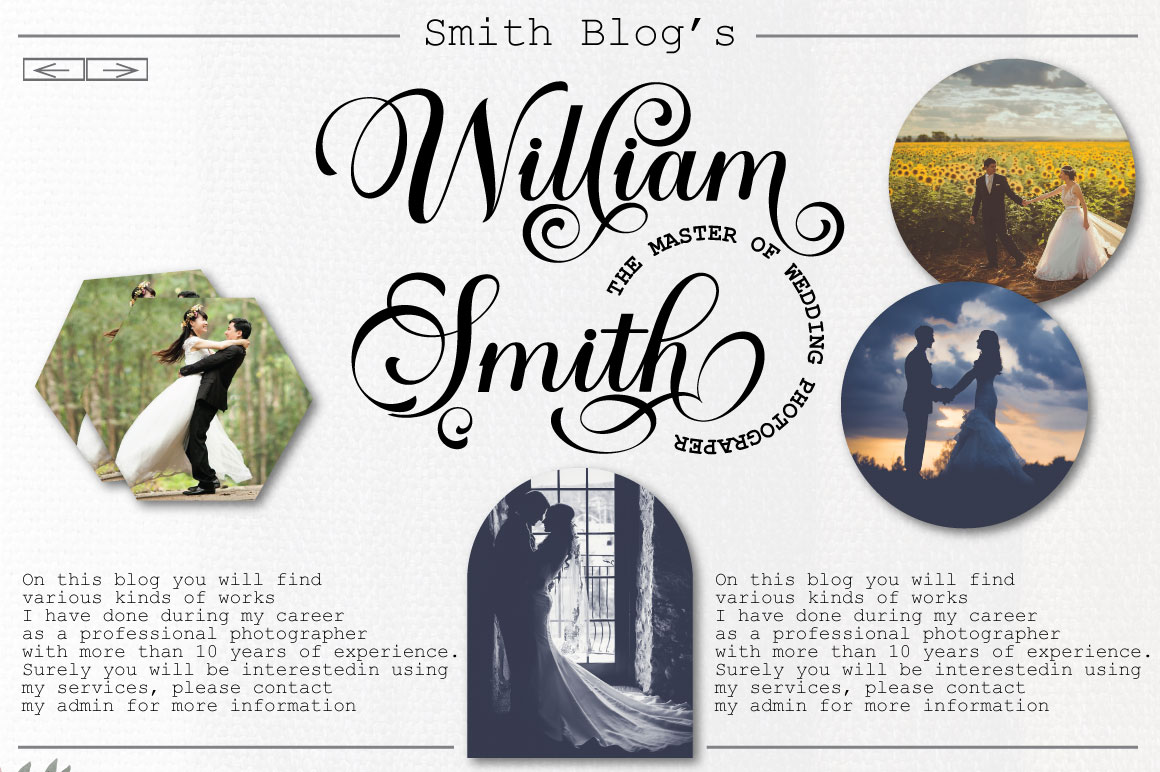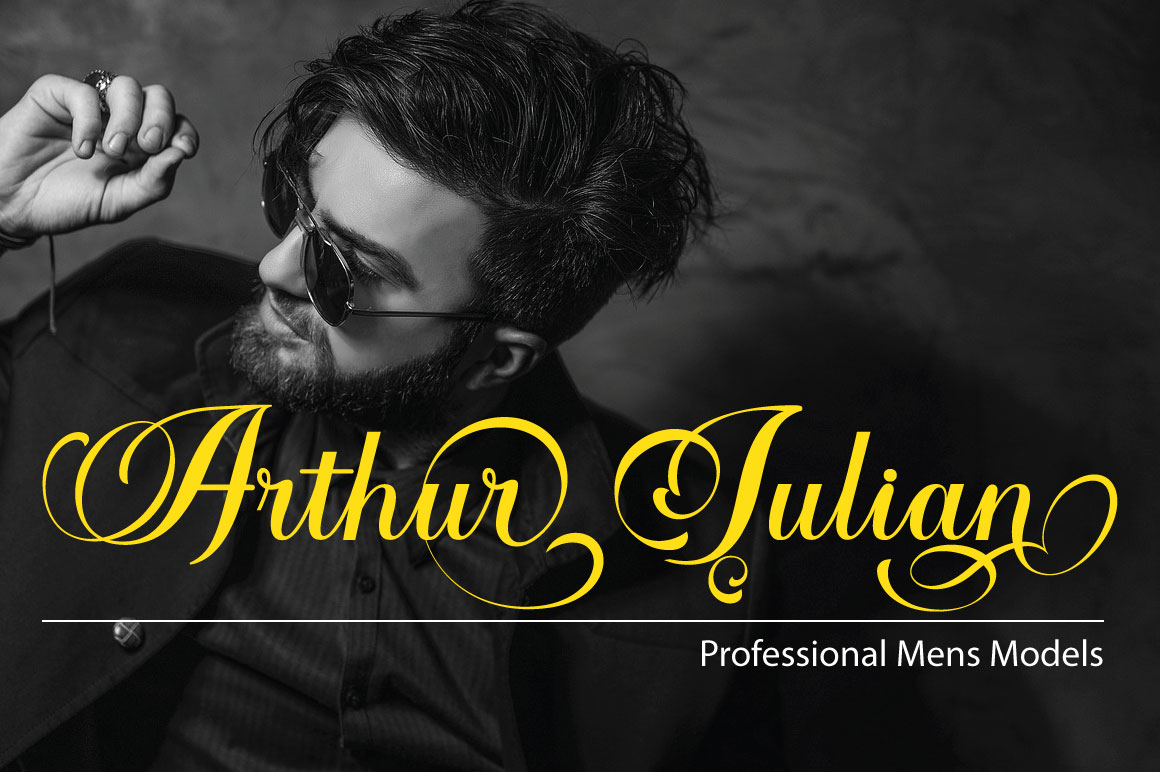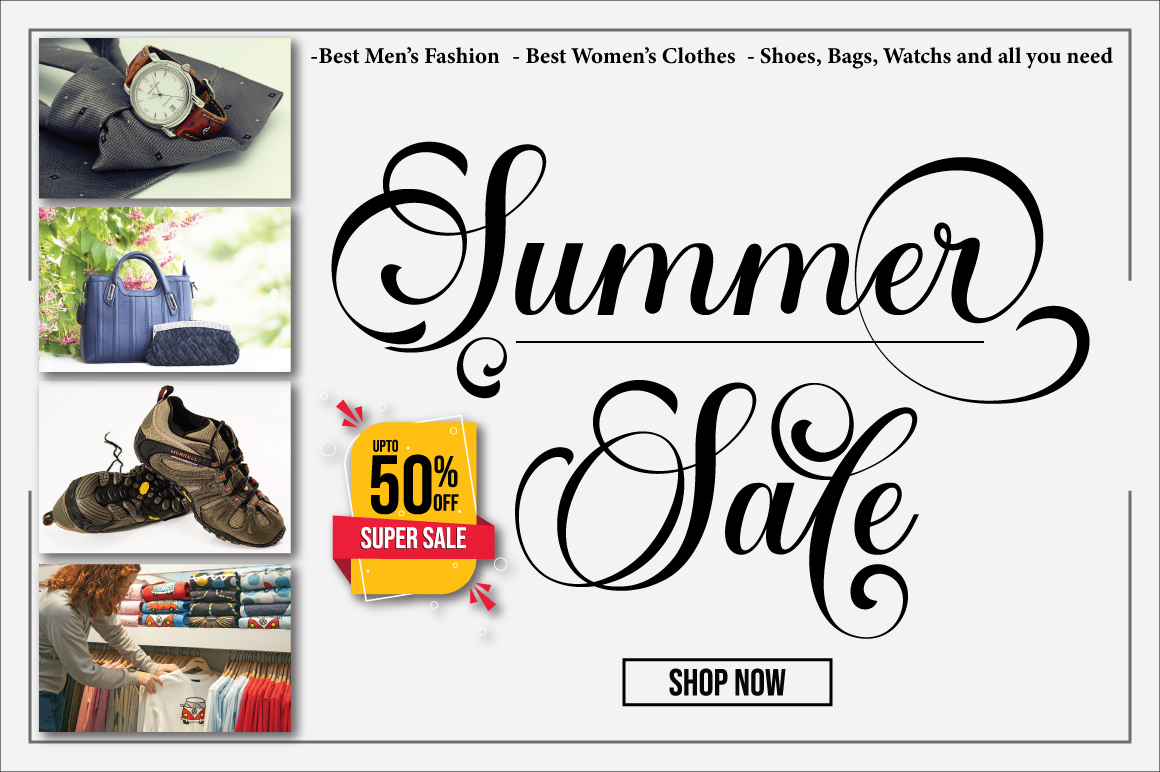
Dear Nathalie Calligraphy Font is a modern and stylish calligraphy script font, carefully created with a touch of elegance in every character. It will help you create projects with a personal note that expresses confidence and exuberant energy. This font is suitable for any project like wedding invitations, fashion branding, logotypes, and more! It will add a luxury spark to any design project that you wish to create!